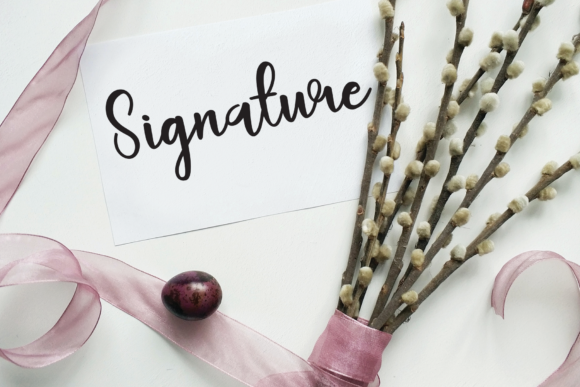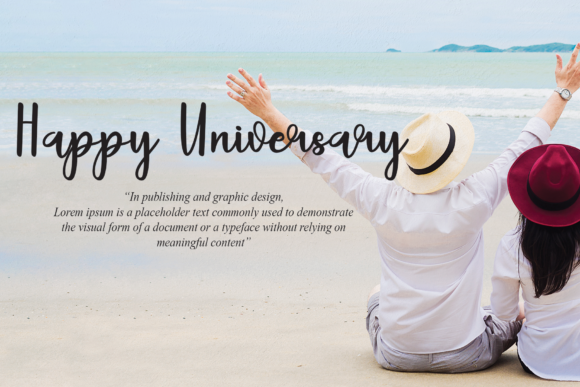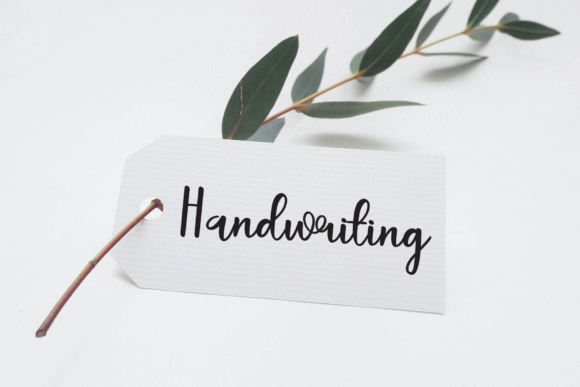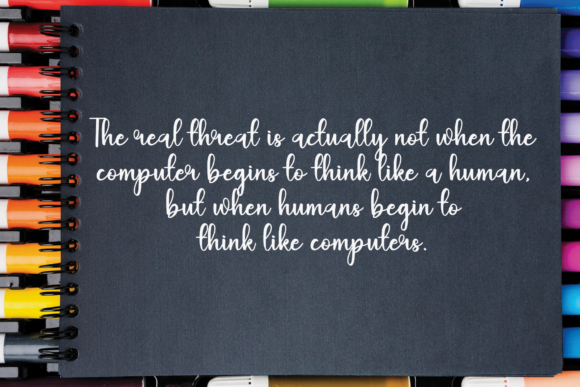
Introduction to Callifornie Font
Have you ever been working on a creative project, and the perfect font eludes you? You envision a romantic, whimsical touch that elevates your design from good to great, but nothing seems to fit the bill. This is where the enchanting Callifornie Font comes into play.
As a valuable resource for designers, the Callifornie Font is a sweet and cursive handwritten font that adds a touch of magic to any project. Its soft, delicate lines and subtle flair make it a must-have for any creative endeavor, whether you’re designing a wedding invitation, a blog post, or a social media graphic.
With its transparent background and high-quality design, the Callifornie Font is a free download that’s perfect for adding a personal touch to your projects. So why settle for a generic font when you can make a statement with the charming Callifornie Font?
Key Features of Callifornie Font
- Unique, hand-drawn design with a touch of California charm, making it perfect for creative projects that require a personal touch.
- Designed with a large x-height, making it highly legible in a wide range of font sizes, from 12 to 48 points.
- Perfect for use in various design contexts, including logos, branding, typography, and more, adding a touch of elegance and sophistication to any creative project.
Honest Review: Callifornie Font
As a designer, I’m always on the lookout for unique and high-quality design resources to elevate my creative projects. The Callifornie Font is one such resource that caught my attention, and I’m excited to share my honest review.
What works well: ✨ The Callifornie Font has a distinctive, modern feel that’s perfect for creating eye-catching designs. The font is highly versatile and can be used for a variety of creative projects, from logos to social media graphics. I also appreciate the fact that it’s available for free download, making it a great resource for designers on a budget.
What’s not so great: ⚠️ While the font itself is high-quality, the transparent background can sometimes make it difficult to work with. I’ve found that I need to use a lot of masking or layering to get the desired effect. Additionally, the font doesn’t come with a lot of variations, which can limit its use in certain design scenarios.
Overall impression: I think the Callifornie Font is a solid addition to any designer’s toolkit. While it may have some limitations, its unique style and high quality make it a great choice for creative projects. If you’re looking for a free design resource that can add some flair to your work, the Callifornie Font is definitely worth checking out.
- Unique and modern design
- Highly versatile
- Transparent background can be tricky to work with
- Limited variations
Introduction to Callifornie Font
Callifornie Font is a high-quality design resource ideal for creative projects that require a unique touch. This font offers a transparent background, making it versatile for various design needs.
Tips for Getting the Most Out of Callifornie Font
To get the most out of Callifornie Font, experiment with different font sizes, colors, and combinations to achieve a unique look. You can also use it in conjunction with other design elements to create a cohesive and visually appealing design.
Callifornie Font is ideal for a variety of design projects, including branding, marketing materials, and creative projects. Its high-quality features and transparent background make it a versatile design resource that can be used in a range of contexts.